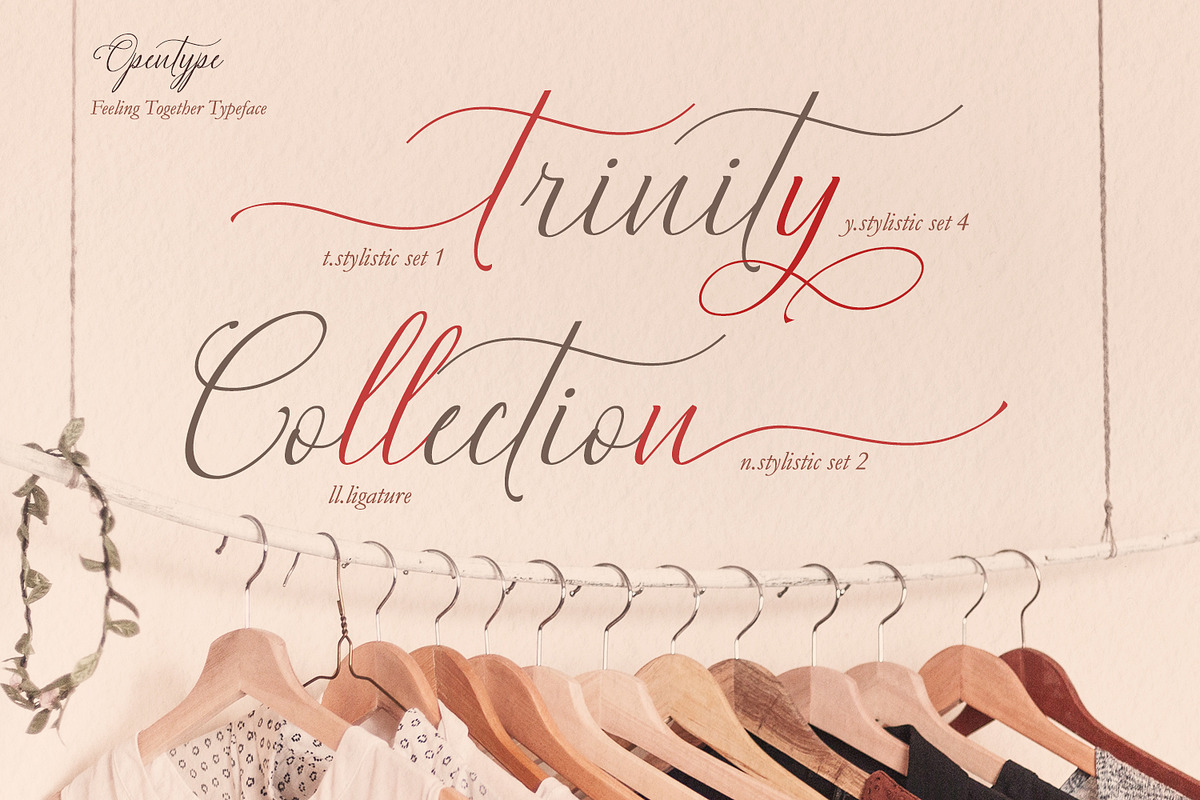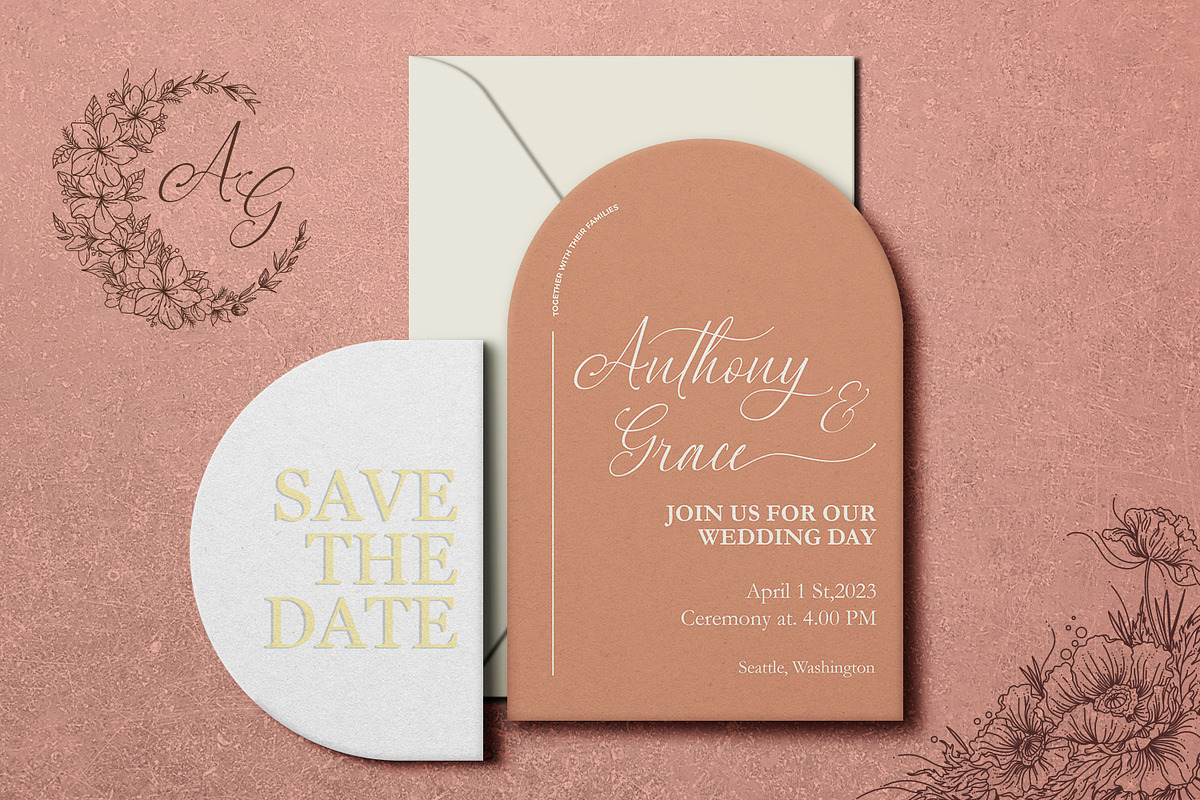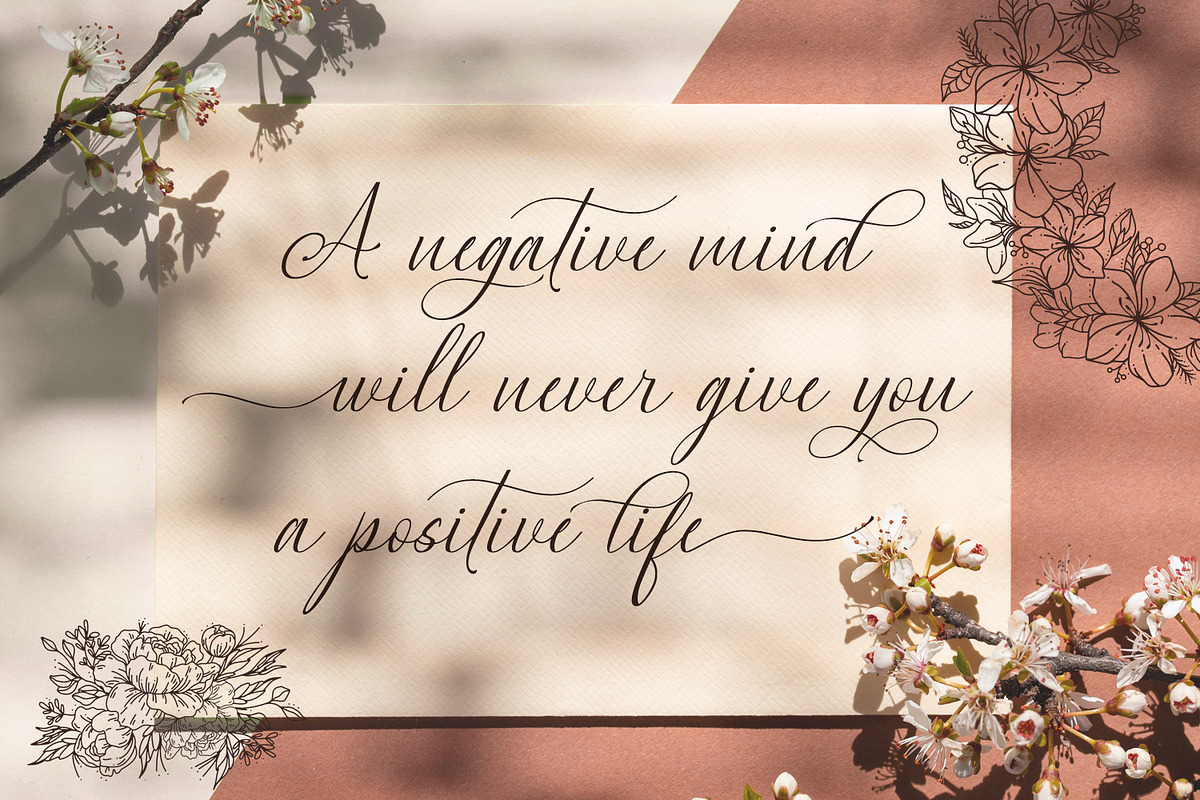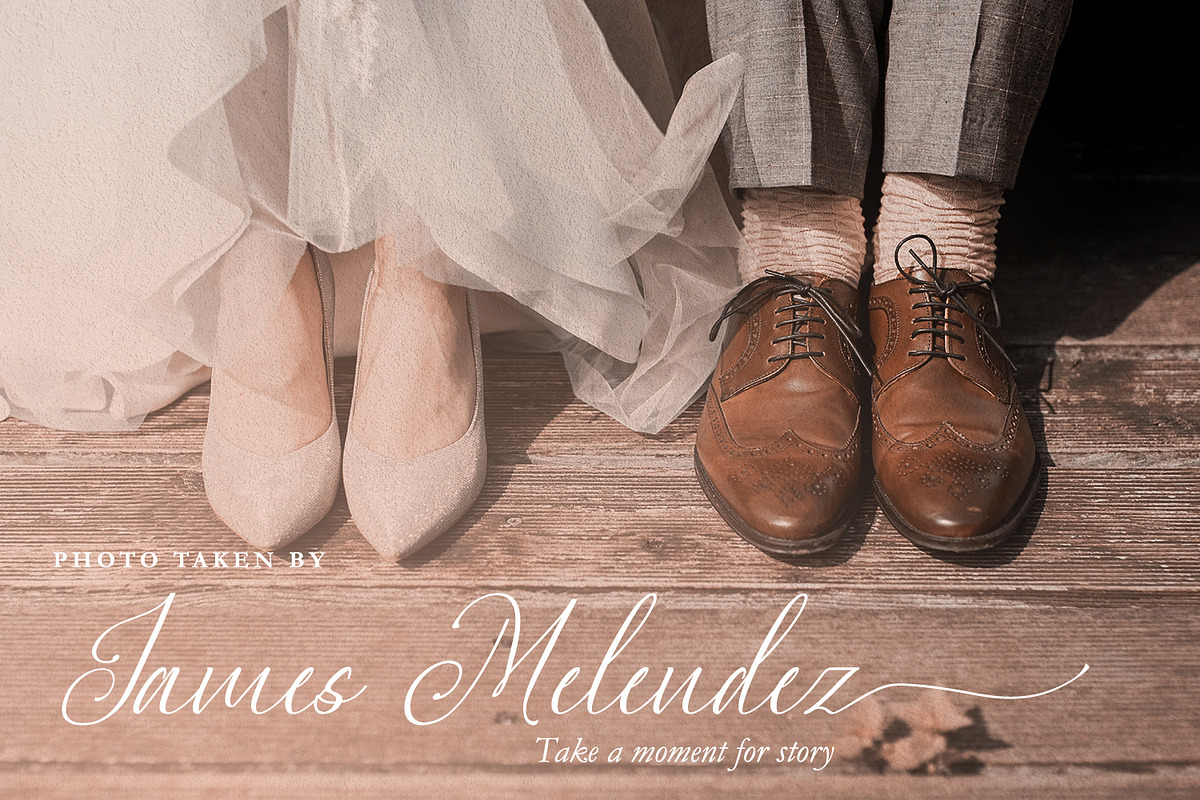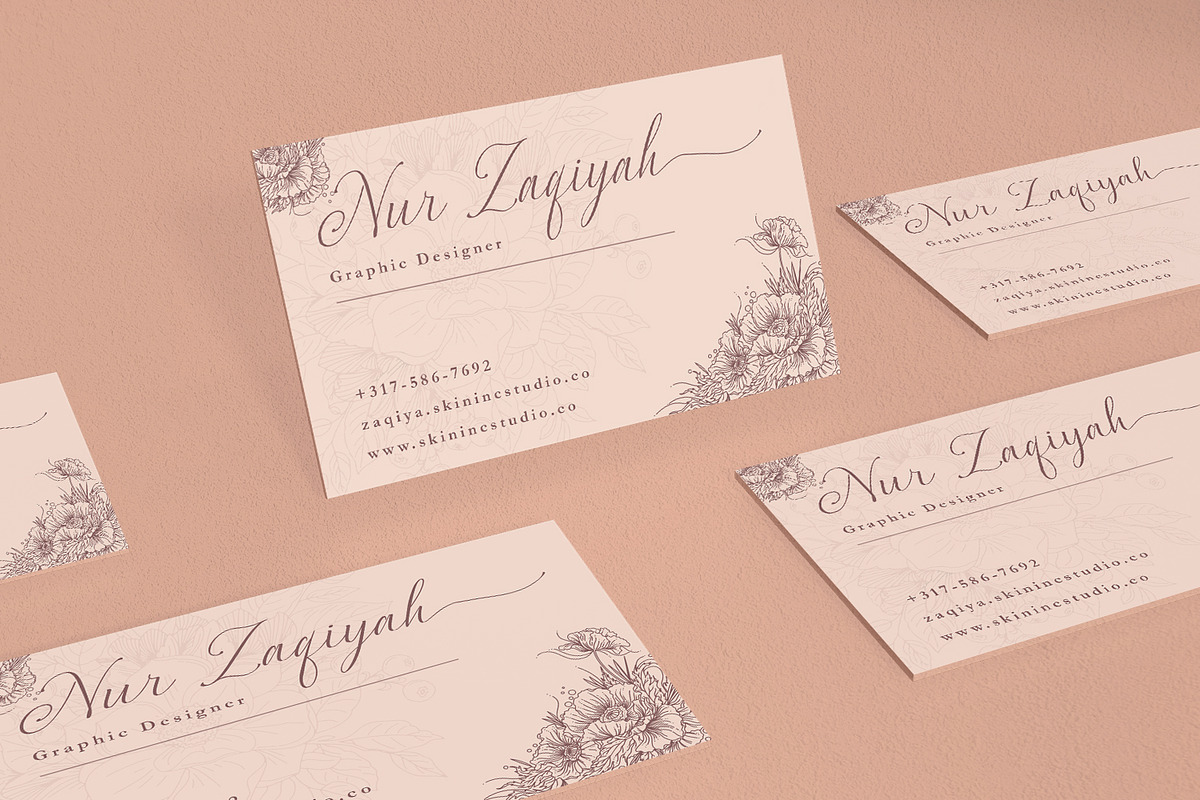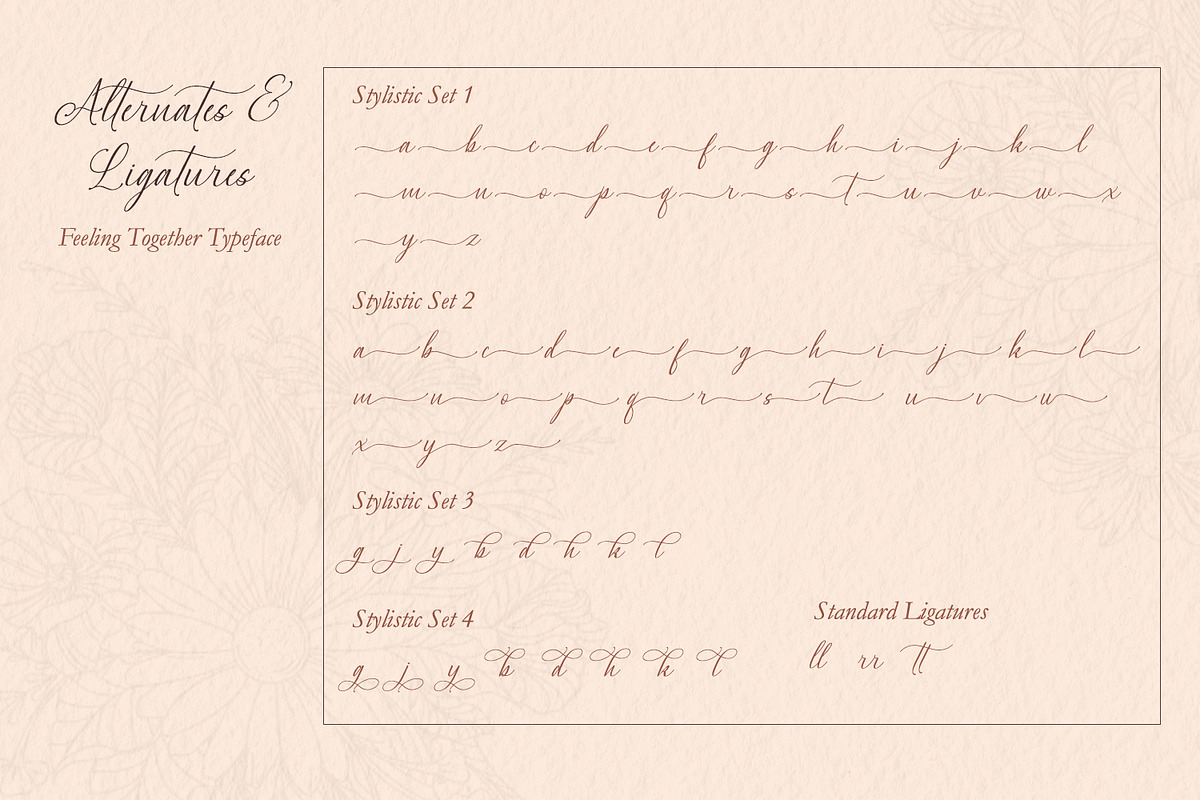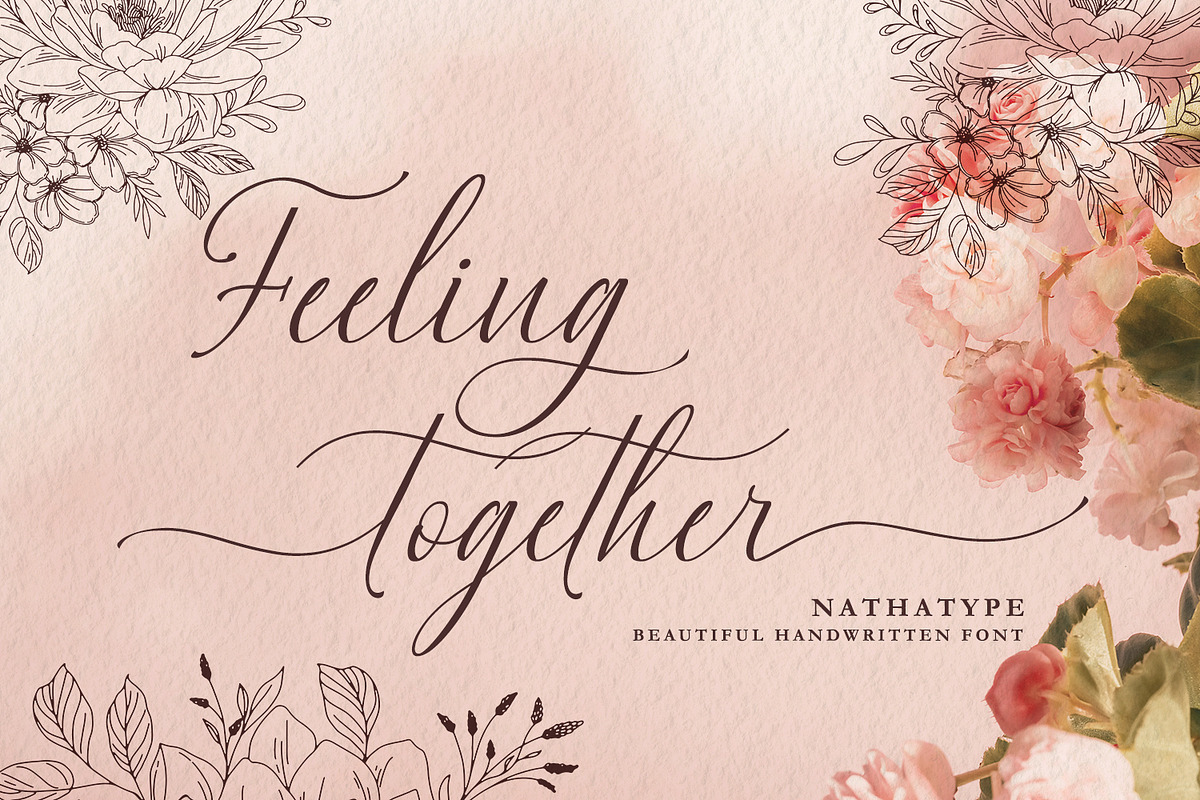
Feeling Together
It can be troublesome to create a natural-looking design using a clean, modern font. A badly designed font can damage the whole project display and produce a very unexpected result. For such a reason, we are glad to introduce you to our handwritten font to help you create personal nuances on your projects. This is the Feeling Together, a handwritten font carefully created to ensure its natural, unorganized display for a handwriting-like design. Each letter is interconnected in contrast, thin, thick wipes. For a maximum legibility, Feeling Together is suitably applicable for big text sizes. You can enjoy the available features here as well.
- Stylistic Sets
Feeling Together fits best for various design projects, such as brandings, posters, banners, headings, magazine covers, quotes, printed products, merchandise, social media, etc. Find out more ways to use this font by taking a look at the font preview.